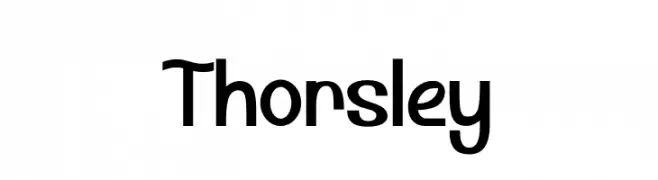
( Halim Antoni - fontbundles.net/halimstudio )
A dynamic and expressive handwritten font with fluid, interconnected strokes.
( Halim Antoni - fontbundles.net/halimstudio )
An expressive, cursive font with fluid, artistic strokes.
( IYBI - Radi Safi - ifyoubuildit.com.au/ )
A modern, geometric font with consistent stroke width and clear readability.
( Incstone Design, by Megami Studios - Rob Barba - www.incstonedesign.com/ )
A geometric, hollow font with a modern and futuristic design.
( Incstone Design, by Megami Studios - Rob Barba - www.incstonedesign.com/ )
A bold, distressed font with an eroded, industrial look.
( PutraCetol Studio - Putra Novembria Candra Kusuma - creativemarket.com/putracetol )
A bold, expressive handwritten font with dynamic and flowing letterforms.
( Steve Gardner - www.explogos.com )
A clean, structured serif font with medium contrast and excellent readability.
( Thor Christopher Arisland - www.tcarisland.com )
A bold and oblique font with a modern, dynamic style.
( Typodermic Fonts - Ray Larabie - www.typodermicfonts.com/ )
A geometric, hollow font with a futuristic and modern aesthetic.
( Zero Thompson - www.facebook.com/Zerografics )
A casual, handwritten font with smooth, fluid strokes and a personal touch.
( pointlab studio - creativemarket.com/pointlab )
A lively, handwritten font with elegant, elongated characters and dynamic strokes.
( weknow - Wino S Kadir - www.creativefabrica.com/designer/weknow/ )
A futuristic, geometric font with hollow, inverse letterforms enclosed in squares.
( weknow - Wino S Kadir - www.creativefabrica.com/designer/weknow/ )
A futuristic, hollow, and geometric font with a modern tech-inspired design.
( weknow - Wino S Kadir - www.creativefabrica.com/designer/weknow/ )
A bold, hollow font with dynamic curves and sharp angles, offering a modern and artistic style.
( weknow - Wino S Kadir - www.creativefabrica.com/designer/weknow/ )
A playful, hollow font with consistent outlines and rounded edges.
( weknow - Wino S Kadir - www.creativefabrica.com/designer/weknow/ )
A bold, decorative font with rounded, interconnected characters.
( weknow - Wino S Kadir - www.creativefabrica.com/designer/weknow/ )
A playful, italic font with rounded, consistent strokes and a modern, decorative style.
( weknow - Wino S Kadir - www.creativefabrica.com/designer/weknow/ )
A hollow, geometric font with a futuristic and modern style.
( weknow - Wino S Kadir - www.creativefabrica.com/designer/weknow/ )
A futuristic and geometric font with circular elements and consistent stroke width.
( weknow - Wino S Kadir - www.creativefabrica.com/designer/weknow/ )
A futuristic and abstract font with smooth curves and geometric shapes.
( weknow - Wino S Kadir - www.creativefabrica.com/designer/weknow/ )
A bold, italicized font with playful, rounded characters and a whimsical style.
( weknow - Wino S Kadir - www.creativefabrica.com/designer/weknow/ )
A futuristic, hollow, geometric font with sharp, angular lines.
( weknow - Wino S Kadir - www.creativefabrica.com/designer/weknow/ )
A modern, hollow, and geometric font with inverse strokes and angular design.
( Anigma New Media - www.anigma.fsnet.co.uk/an/anigma-fonts.html )
A bold, italic font with a dynamic slant and strong presence.
( Cioroianu Stefan Cristian )
An elegant, italicized font with classic Roman influences.
( Cioroianu Stefan Cristian )
An ornate script font with elaborate swashes and flourishes.
A refined serif font with elegant, thin strokes and a timeless aesthetic.
( MGTheatrics )
A modern, geometric font with clean lines and angular shapes.
( SnailFonts - whatknot.tripod.com/snailfont/index2.html )
A bold, dripping font with a unique, edgy style.
A playful, light, and friendly font with rounded edges and a casual style.
A modern, versatile font with clean lines and a friendly appearance.
A modern, thin sans-serif font with a clean and elegant design.
A bold, rounded font with a playful yet sophisticated style.